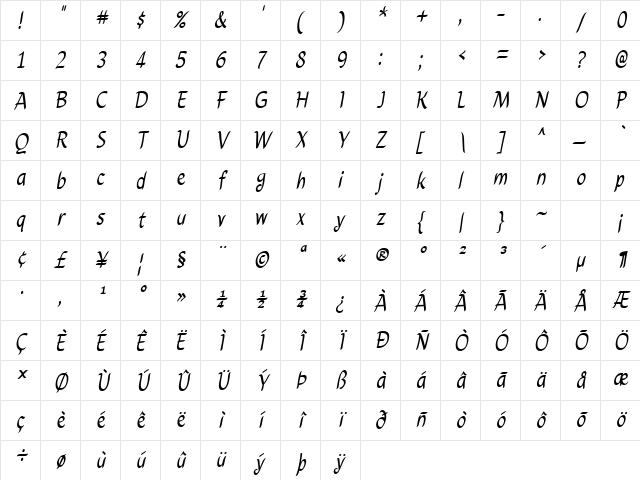
Caryn Regular
Design Context for Caryn
Caryn is a composed and adaptable typeface that performs quietly and consistently across a wide range of design contexts.
Pro Tip: Use Caryn in both headline and body roles to test its range before committing to a single application.